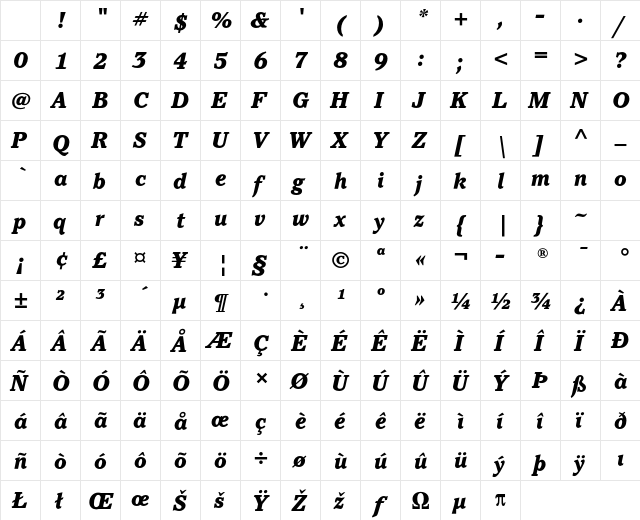
Pacella ITC Std Black Italic
Designer: Vincent Pacella
Complete Pacella ITC Std Black Italic glyph index. Displaying only characters natively supported by Pacella ITC Std Black Italic font.
Design Context for Pacella ITC Std
Pacella ITC Std is a composed and adaptable typeface that performs quietly and consistently across a wide range of design contexts. The slanted form adds forward momentum and visual energy.
Pro Tip: Use Pacella ITC Std for emphasis, pull quotes, and subheadings where its slanted energy can add rhythm to the layout.